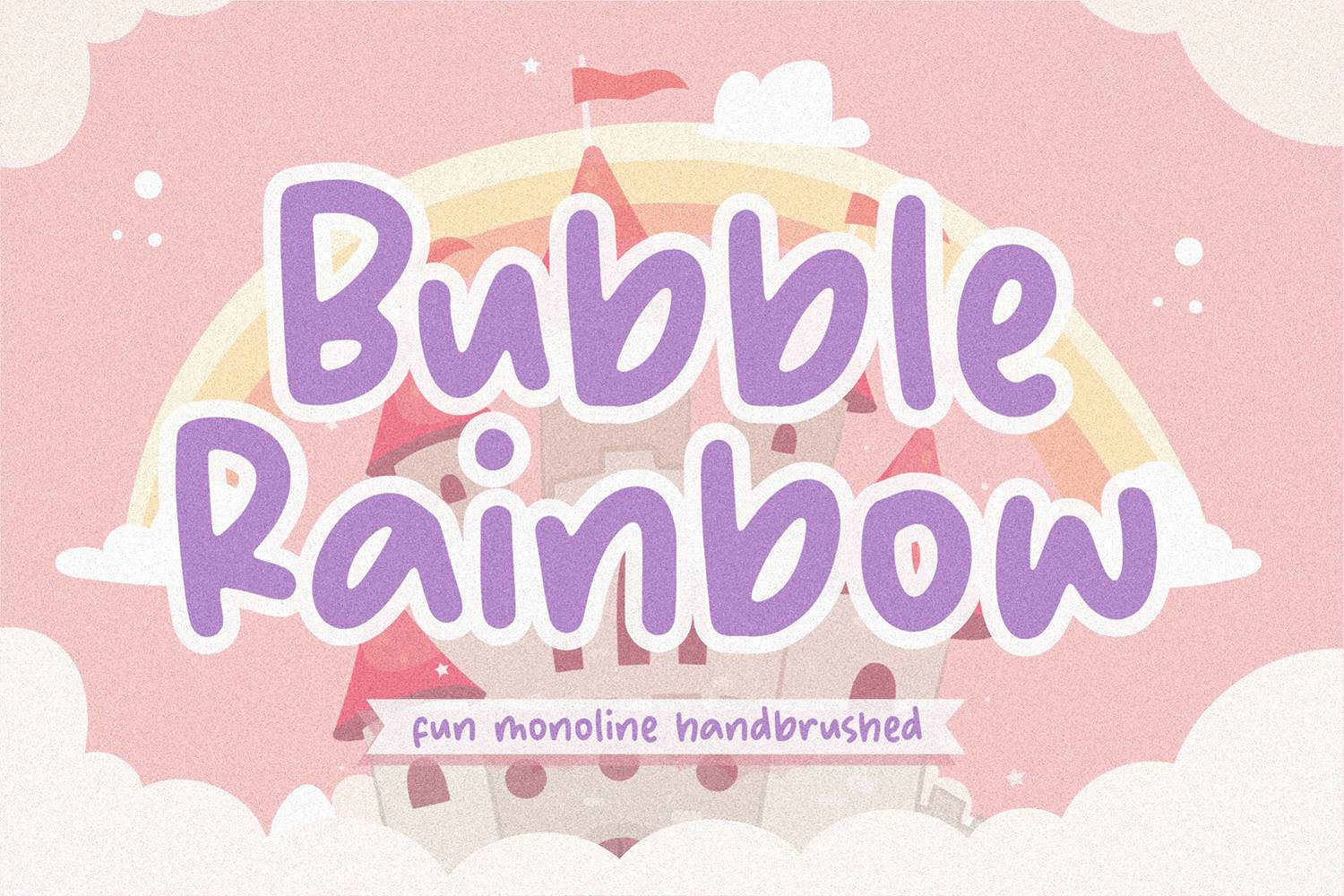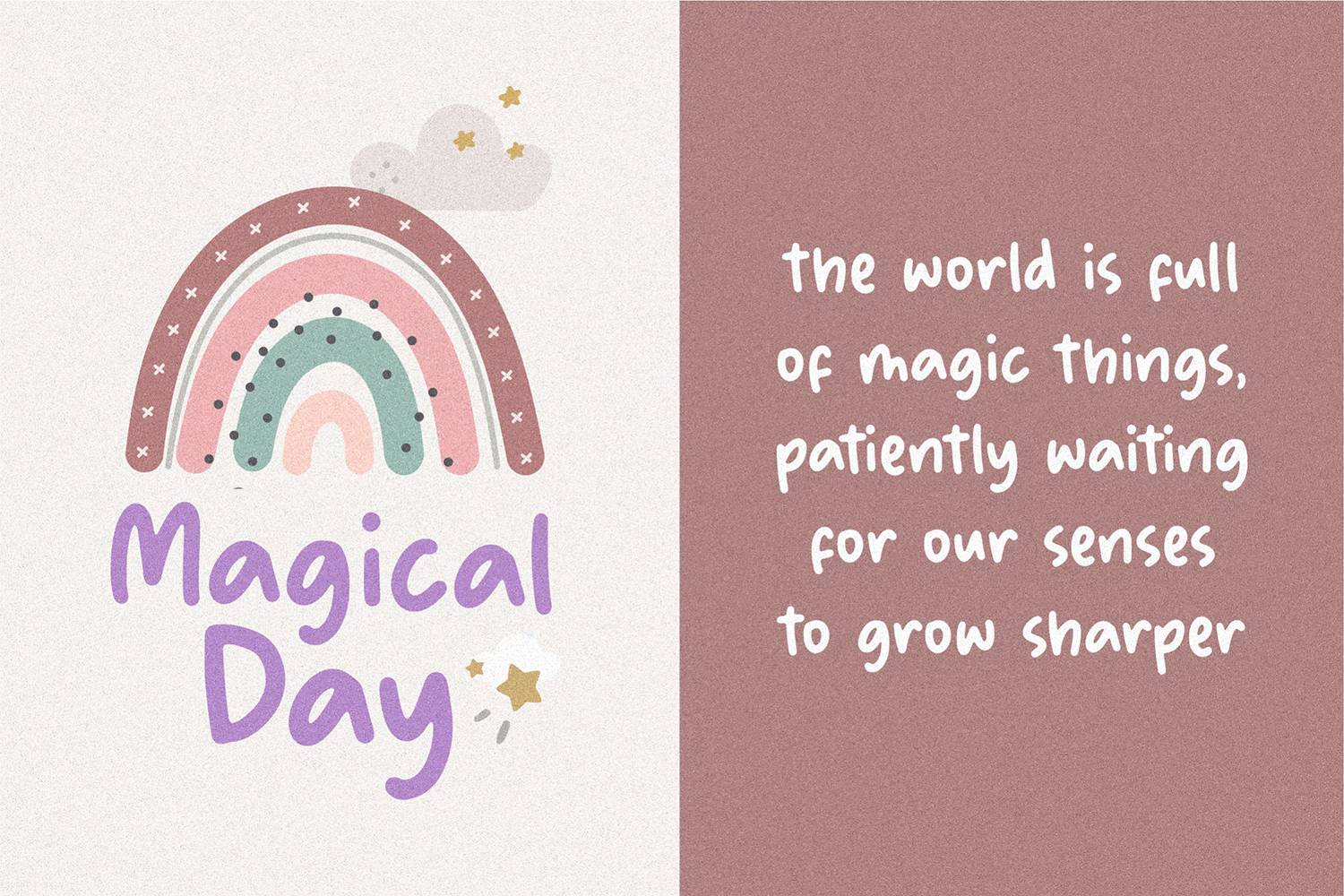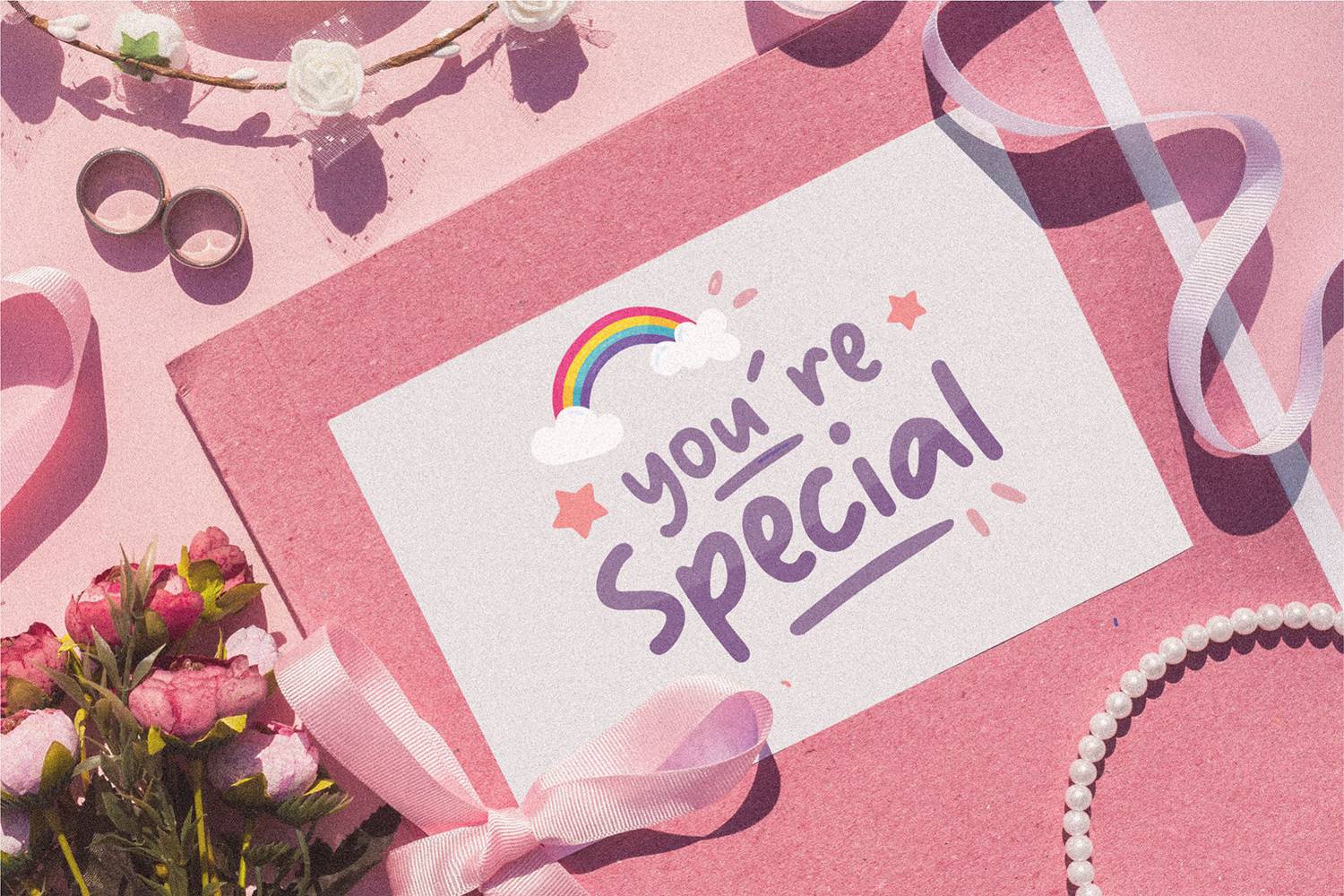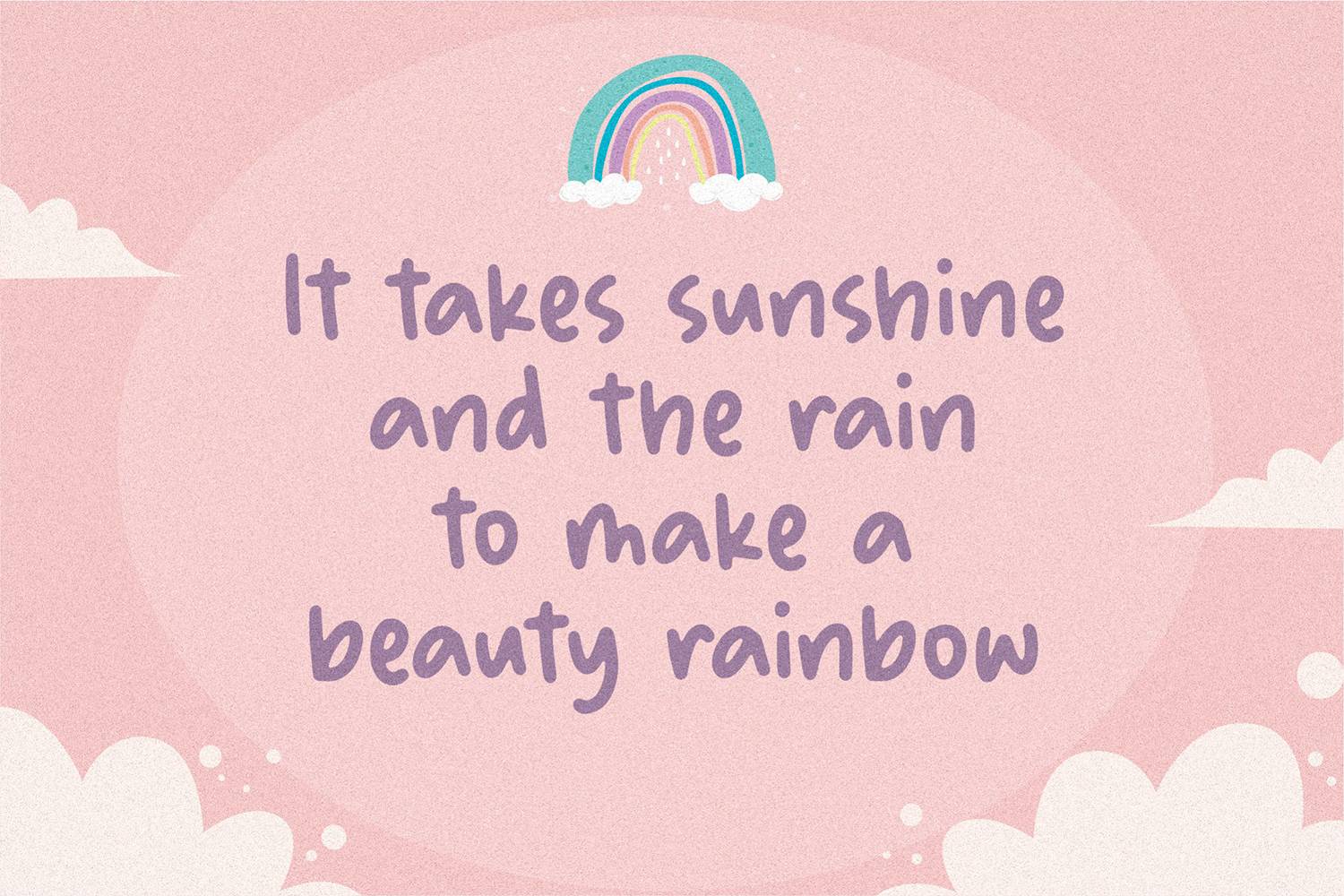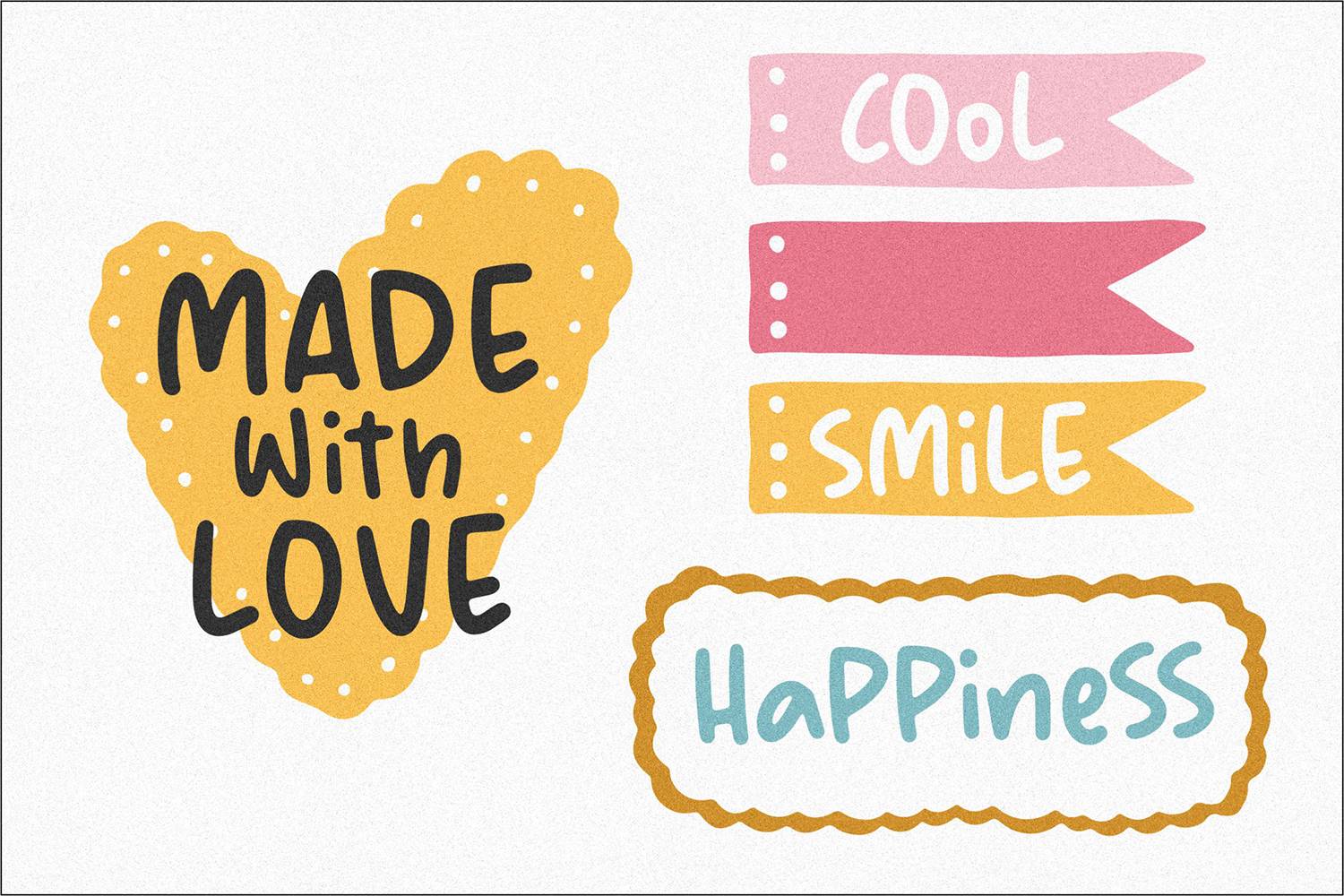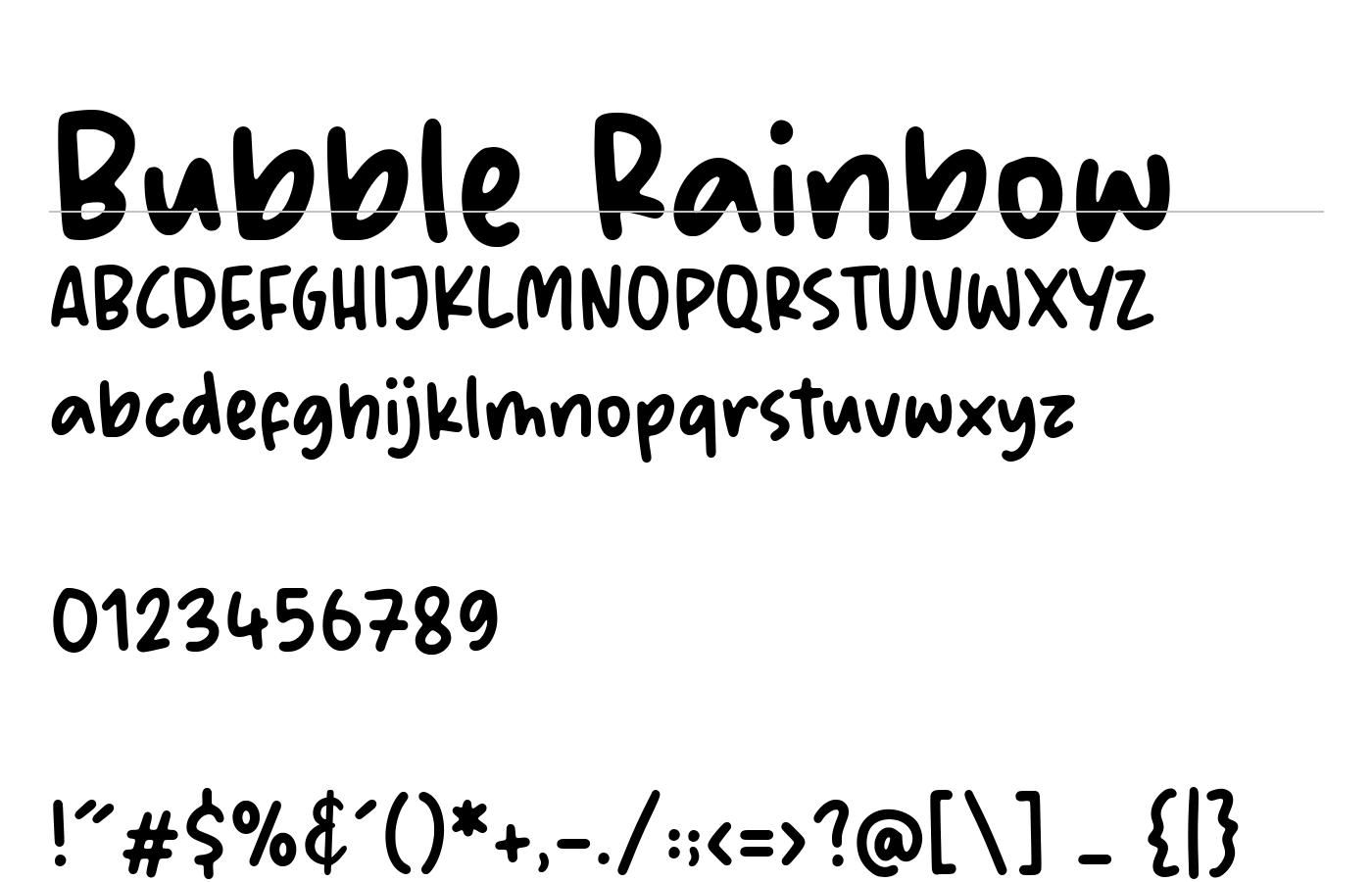
Bubble Rainbow is a playful, rounded sans serif font with a friendly, hand-drawn feel. Its thick, bubbly letterforms and casual style make it perfect for children’s designs, informal branding, and creative projects seeking a fun and approachable vibe. This font works well in headlines, logos, and packaging where a cheerful and lively personality is desired.
Bubble Rainbow Font
About Bubble Rainbow Font